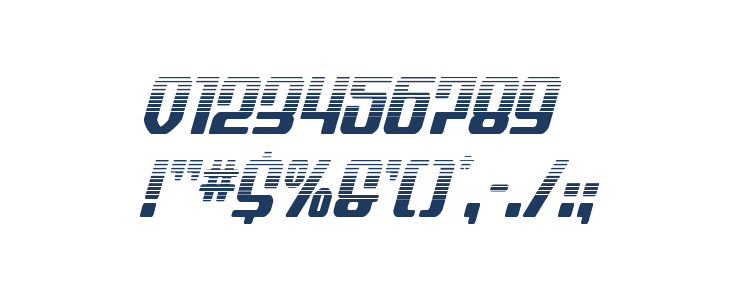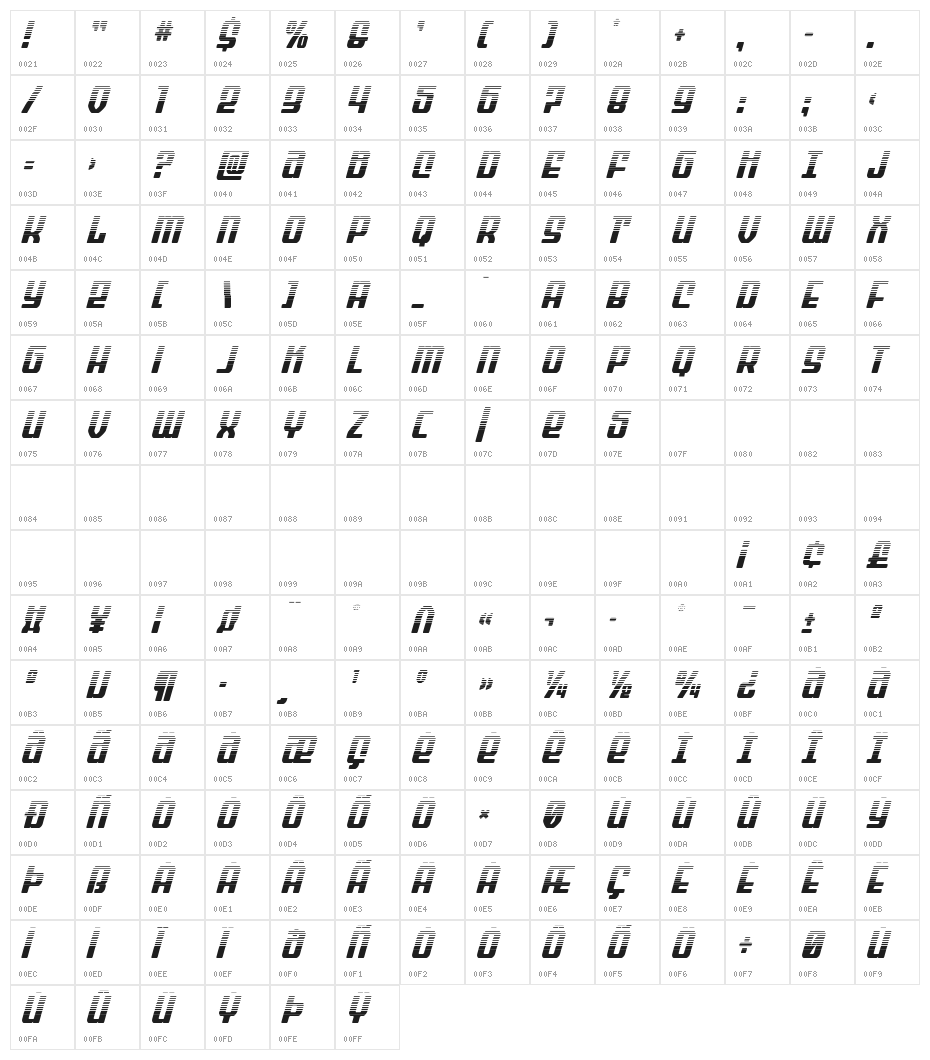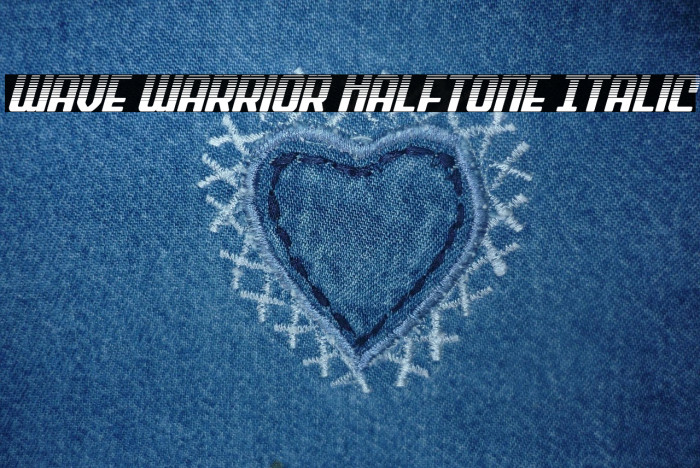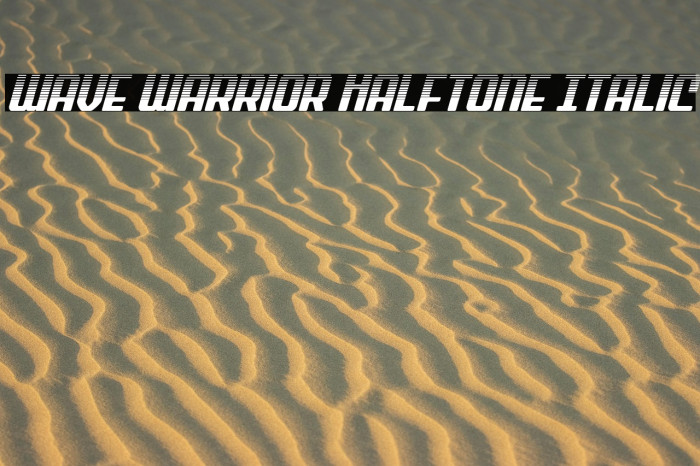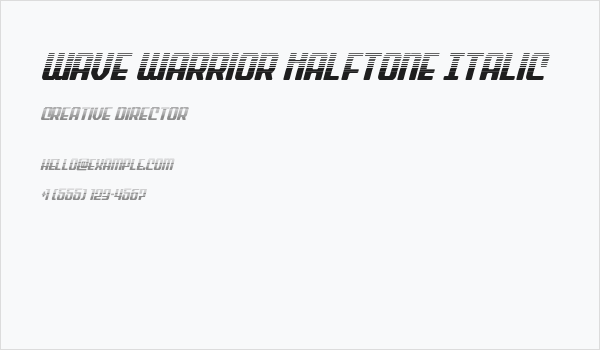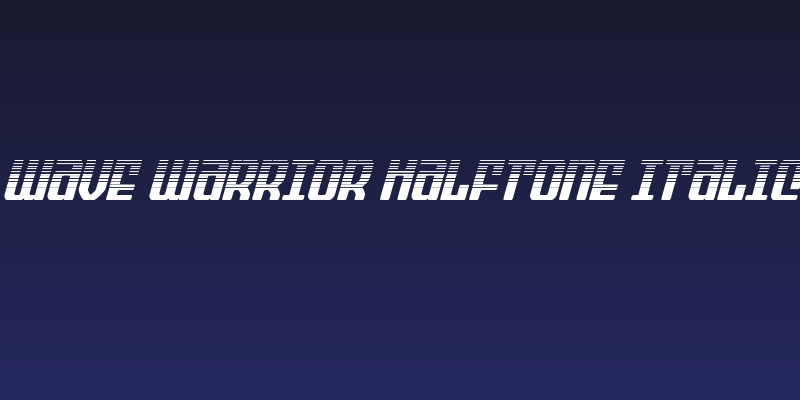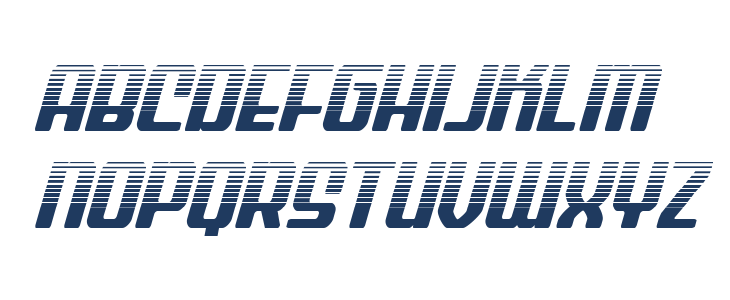
Wave Warrior Halftone Italic Font
Wave Warrior Halftone Italic Description
This font features a dynamic and bold design with a halftone effect that gives it a sense of movement and energy. The characters are italicized, adding a forward-leaning slant that enhances its modern and futuristic appeal. The uppercase and lowercase letters, along with numbers and special characters, are crafted with a unique striped pattern that transitions from solid black to white, creating a striking visual impact. This design is perfect for projects that require a bold statement and a contemporary look.
| Proposed Projects | Ideal for sports branding, futuristic designs, posters, and digital media projects that require a bold and energetic typeface. |